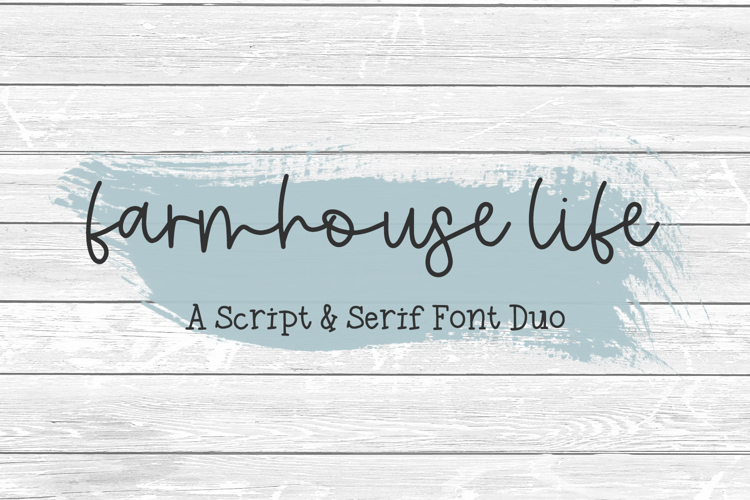
Enjoy Farmhouse Life, a new handlettered script and serif font duo.
Farmhouse Life is best for:
- feminine, crafty projects with your Cricut or Silhouette machine, or your SVG design business
- farmhouse decor and crafts
- website design + website accents, blog design
- feminine graphic tee shirt design & other apparel